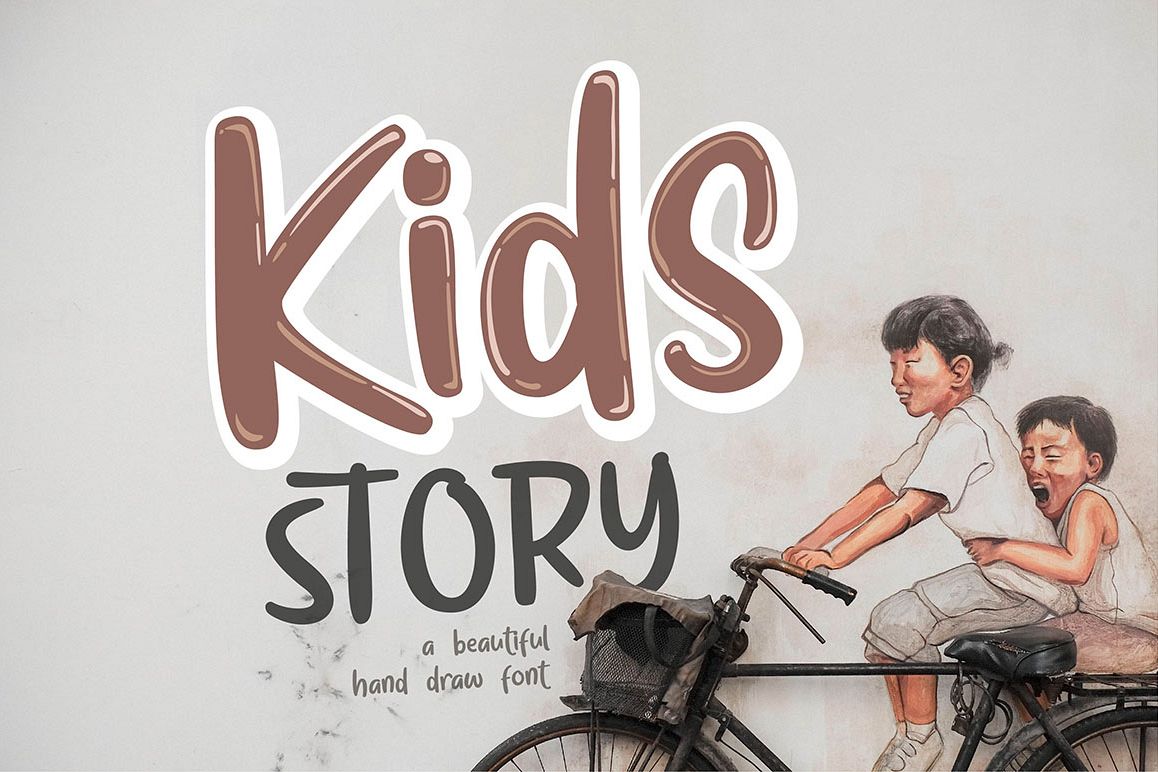
KIDS STORY
KIDS STORY is a beautiful Display comic font Typeface, This Font will look gorgeous on all your designs,
book, branding materials, logo's, t-shirt, poster, baby fashion product, comic, quotes and all project design other.
KIDS STORY contains standard characters, lowercase & Uppercase , numbers, punctuation,